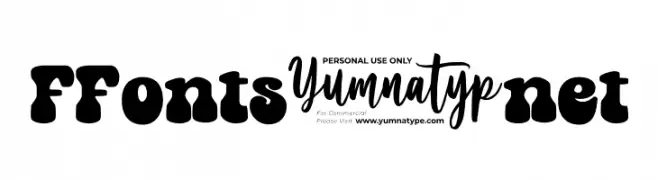
( Fonts by Andrew McCluskey - nalgames.com )
A playful, hand-drawn font with rounded, bold characters and a casual feel.
( Fonts by Bangkit Tri Setiadi )
A bold, playful font with a comic-inspired, hand-drawn style.
A playful, handwritten font with bold strokes and a casual, friendly appearance.
A bold, playful font with a comic book style and hand-drawn feel.
A bold, playful font with thick strokes and rounded edges, ideal for comic-style designs.
A bold, rounded, and playful font ideal for comic-style designs.
A bold, rounded, and playful font with a cartoonish style.
( Fonts by Blue Vinyl - Jess Latham - www.bvfonts.com )
A playful, hand-drawn comic-style font with bold outlines and irregular shapes.
( Fonts by VinType )
A bold, playful font with a comic book style and hand-drawn appearance.
( Fonts by VinType )
A playful, bold outline font with a comic book style.
( Fonts by VinType )
A bold, textured comic-inspired font with a playful, hand-drawn style.
A playful, bold font with a comic-like, hand-drawn style.
( Fonts by Camille Bissuel )
A casual, handwritten font with a playful and informal style.
A playful, informal handwritten font with dynamic and irregular strokes.
( Fonts by www.kimberlygeswein.com - Kimberly Geswein )
A playful, casual handwritten font with smooth, flowing lines.
A bold, calligraphic font with dynamic strokes and angular edges.
( Fonts by Yumna Family )
( Fonts by Typefactoryco )
A playful, rounded font with a bold and friendly style.
( Fonts by Typefactoryco )
A playful, rounded font with bold, smooth curves and a friendly appearance.
( Fonts by The Font Emporium )
A bold, playful font with a 3D shadow effect, perfect for fun and engaging designs.
( Fonts by Southype )
A decorative font with bold characters enclosed in boxes, featuring a marquee light style.
( illustrateddaydreams.tumblr.com/ )
A playful, handwritten font with a casual and dynamic style.
Hand-drawn comic speech and thought bubble designs.
A bold, playful font with a comic book style and lively character.
A bold, playful comic-style font with dynamic, hand-drawn characters.